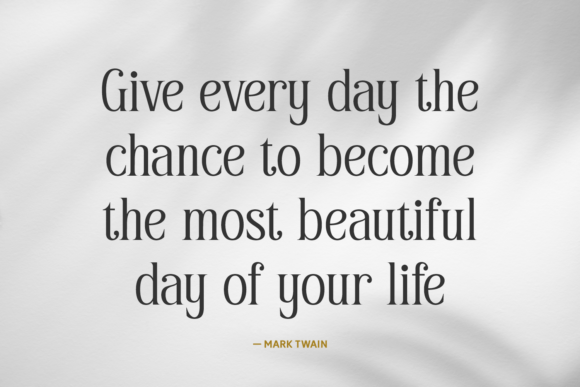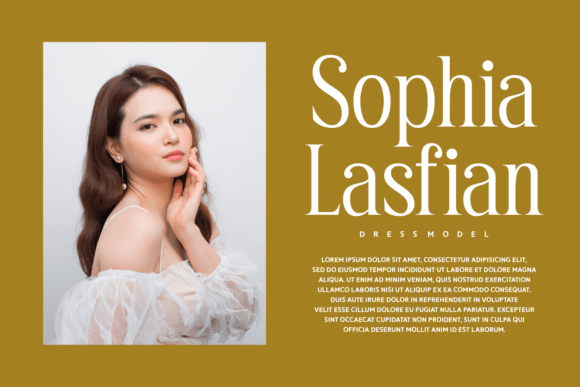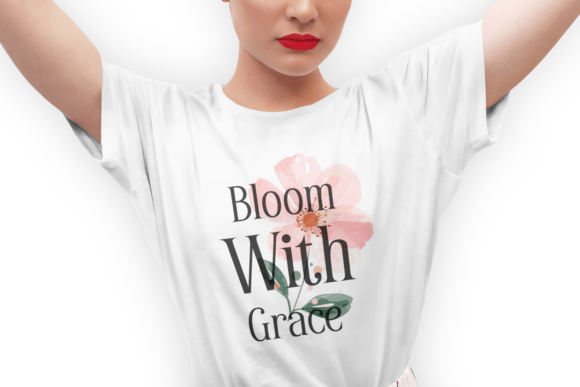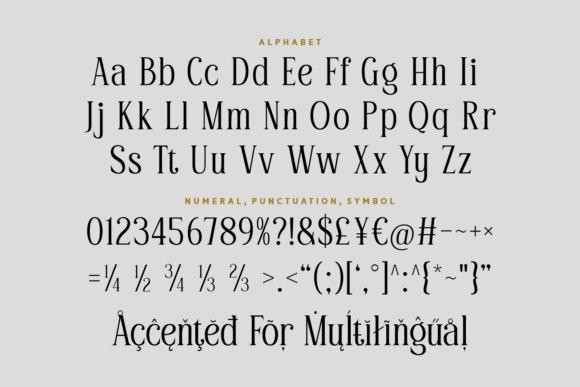
The Perfect Balance of Classic and Contemporary
Do you remember that moment when you finally find the perfect font to bring your design to life? It’s like discovering a hidden treasure, and suddenly everything falls into place. For designers, the quest for the perfect font is a constant pursuit, and today we’re excited to introduce you to the “Bright Frame Font”, a modern classic serif that will elevate your designs to new heights.
Bright Frame Font is more than just a font – it’s an experience. Its elegant, sophisticated, and airy atmosphere will transport your audience to a world of refined elegance. With its balanced and harmonious letterforms, this font embodies a timeless yet contemporary aesthetic that will make your designs stand out from the crowd.
Whether you’re a seasoned designer or just starting out, the Bright Frame Font is a valuable addition to your toolkit. Its versatility and sophistication make it perfect for a wide range of projects, from elegant editorial designs to sophisticated branding campaigns.
Bright Frame Font Key Features
- Unique Characteristics: Bright Frame Font features a unique, modern design with a subtle frame effect, adding a touch of sophistication and elegance to any text.
- Font Weight: The font is available in multiple weights, including Light, Regular, Medium, and Bold, allowing for flexibility in text styling and emphasis.
Bright Frame Font Review
Overall, I’m quite impressed with the Bright Frame Font. ✨ It’s a great choice for any design project that requires a touch of elegance and sophistication. The font is highly customizable, with a wide range of font sizes, colors, and styles to choose from.
Here are some of the things that I like about the Bright Frame Font:
- ✨ Elegant and refined design that adds a touch of sophistication to any project
- ✨ Highly customizable with a wide range of font sizes, colors, and styles
- ✨ Easy to read and use, even in smaller font sizes
However, I do have a few concerns:
- ⚠️ Limited support for certain languages and character sets
- ⚠️ Can be a bit overwhelming to use, especially for designers who are new to font customization
- ⚠️ Some users have reported issues with font rendering on certain devices
Overall, I think the Bright Frame Font is a solid choice for designers who want to add a touch of elegance to their projects. While it has some limitations, the benefits far outweigh the drawbacks.
The Bright Frame Font is commonly used in:
- Invitations and event announcements
- Wedding and party decorations
- Photography and art projects